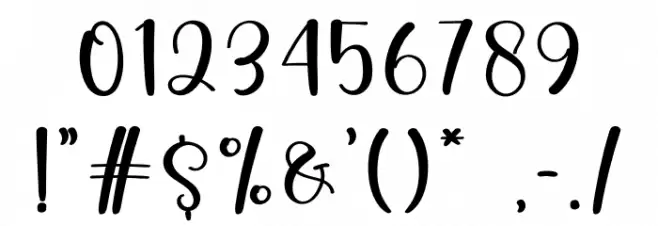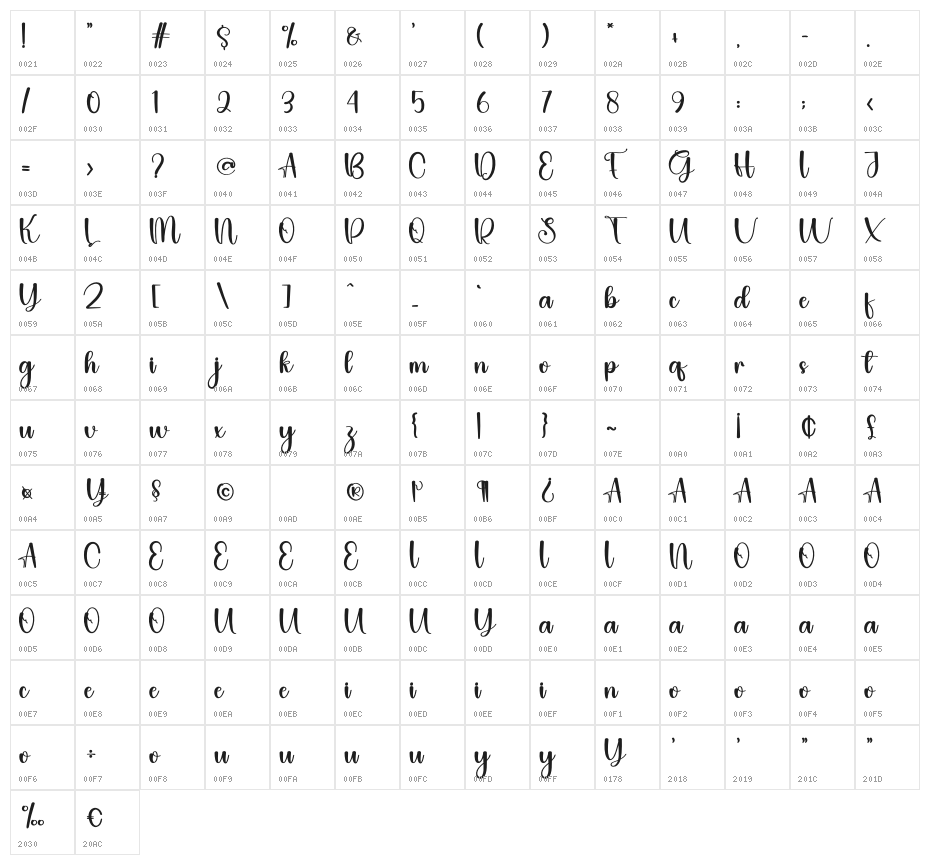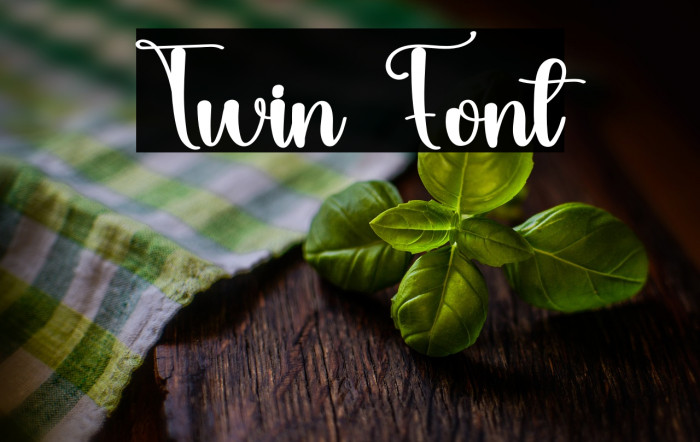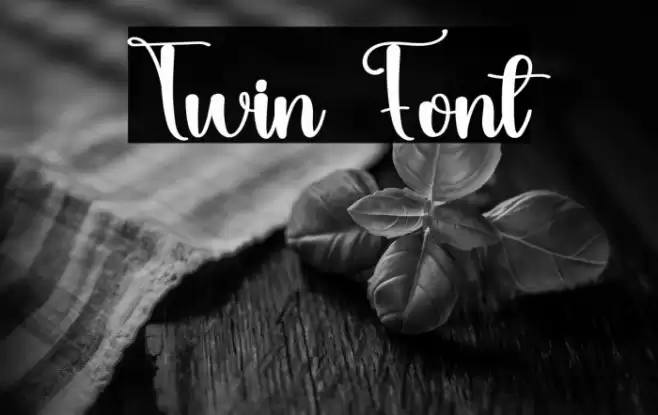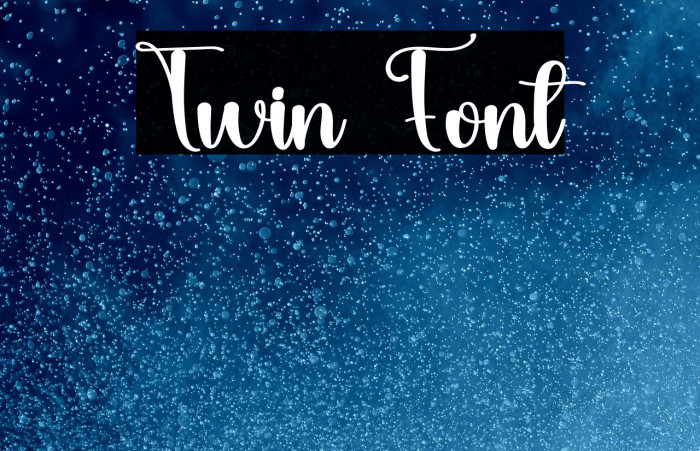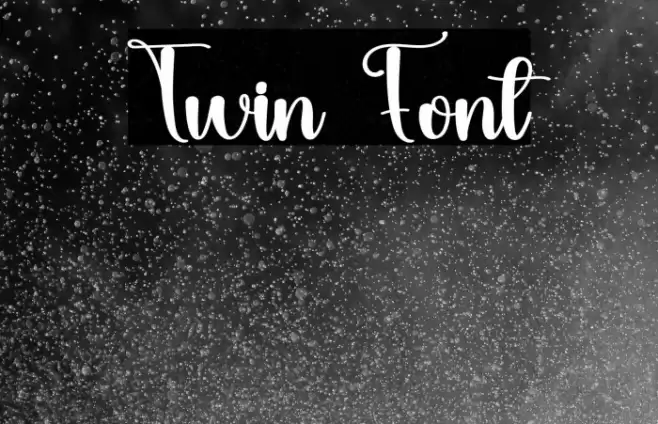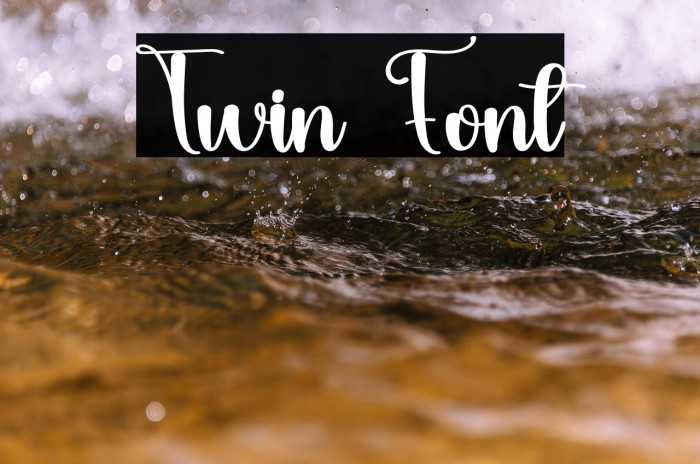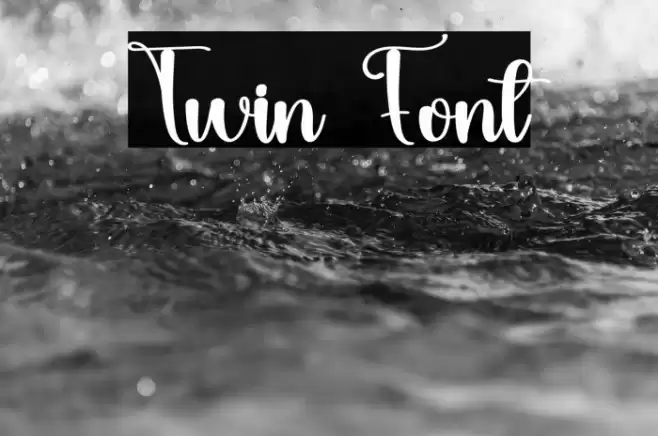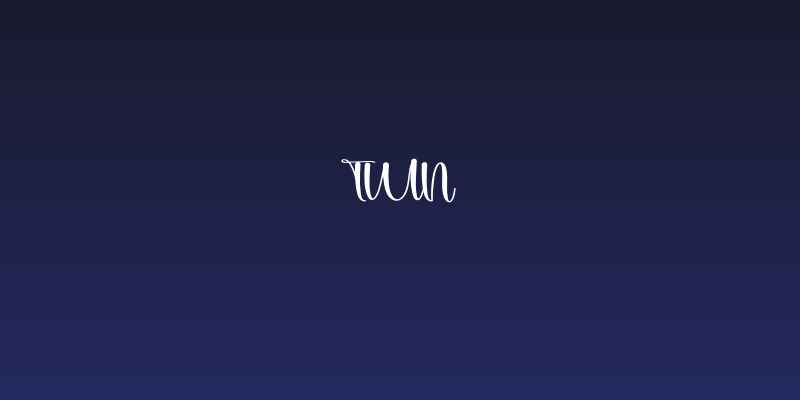
Twin Font
Twin Description
This font features a playful and elegant script style with a handwritten appearance. The uppercase letters are characterized by their flowing, cursive lines and occasional loops, giving them a whimsical feel. The lowercase letters maintain a consistent style, with smooth curves and a slightly bouncy baseline. Numbers and special characters are designed to match the overall aesthetic, with a similar fluidity and charm. The font's overall look is both modern and decorative, making it suitable for creative and expressive design projects.
| Proposed Projects | Ideal for wedding invitations, greeting cards, branding projects, and social media graphics. |